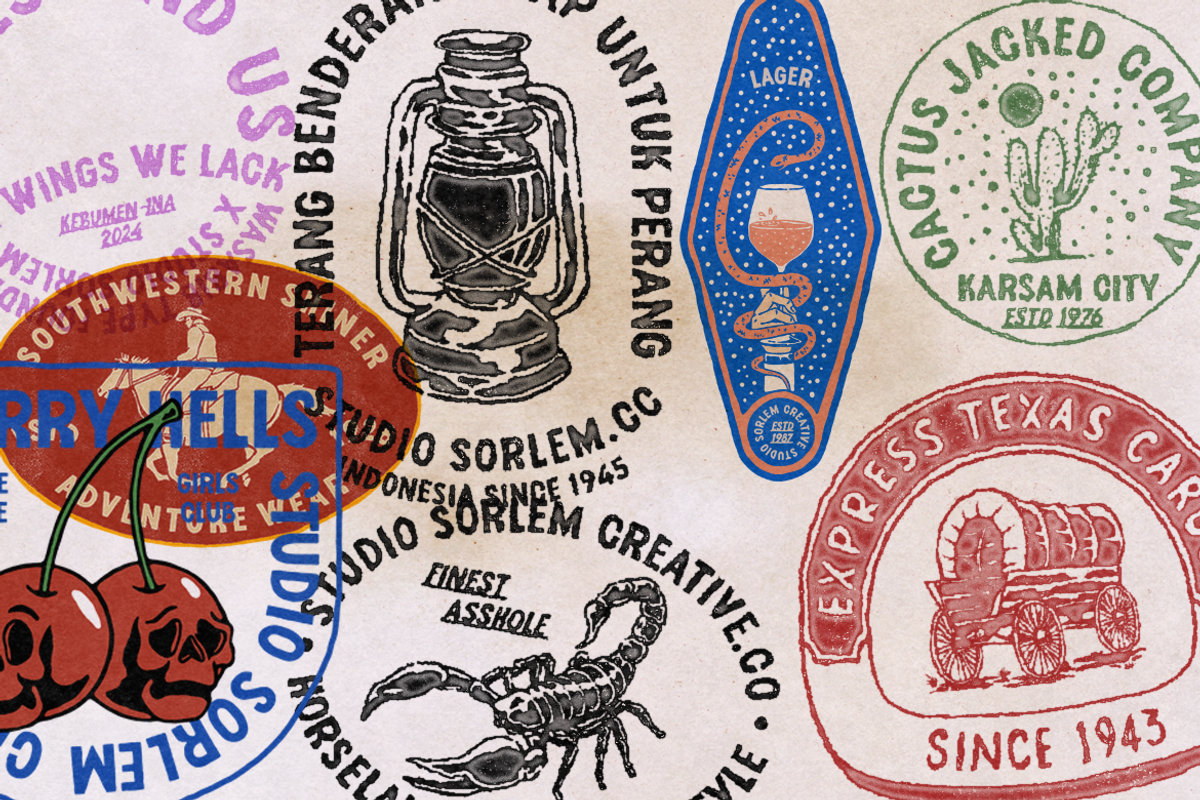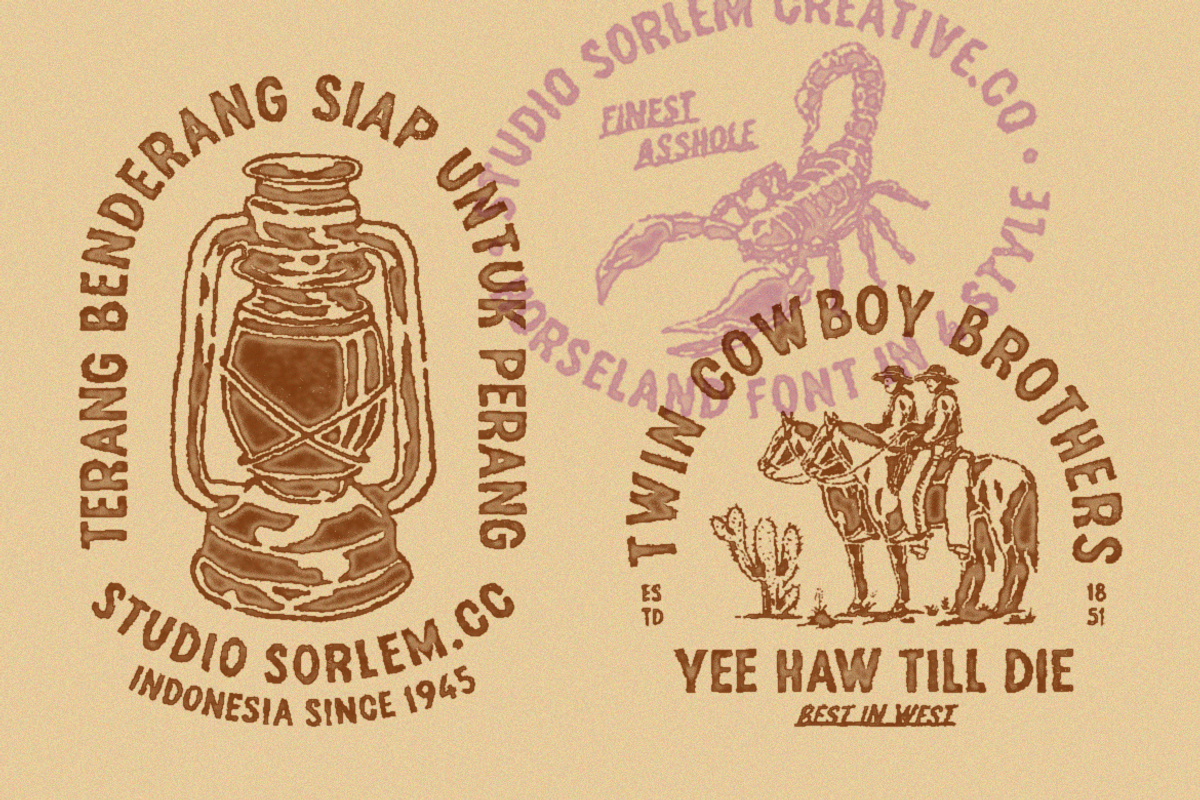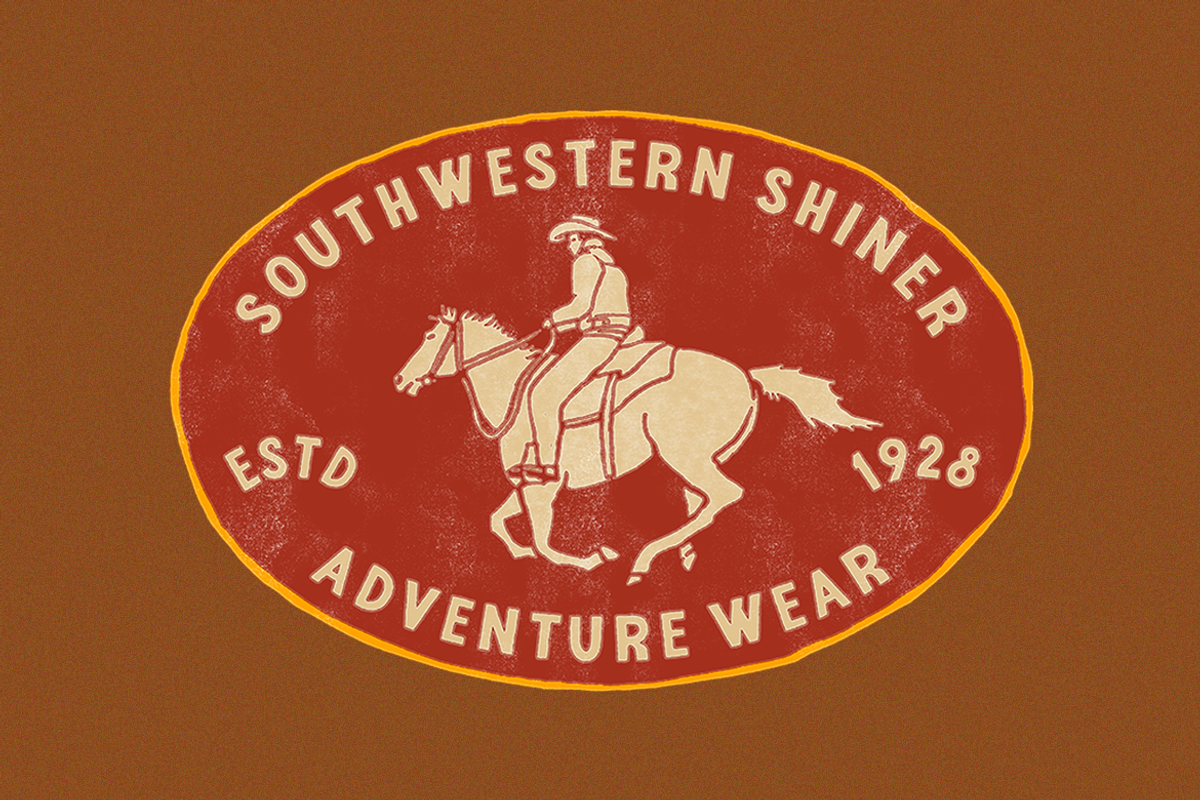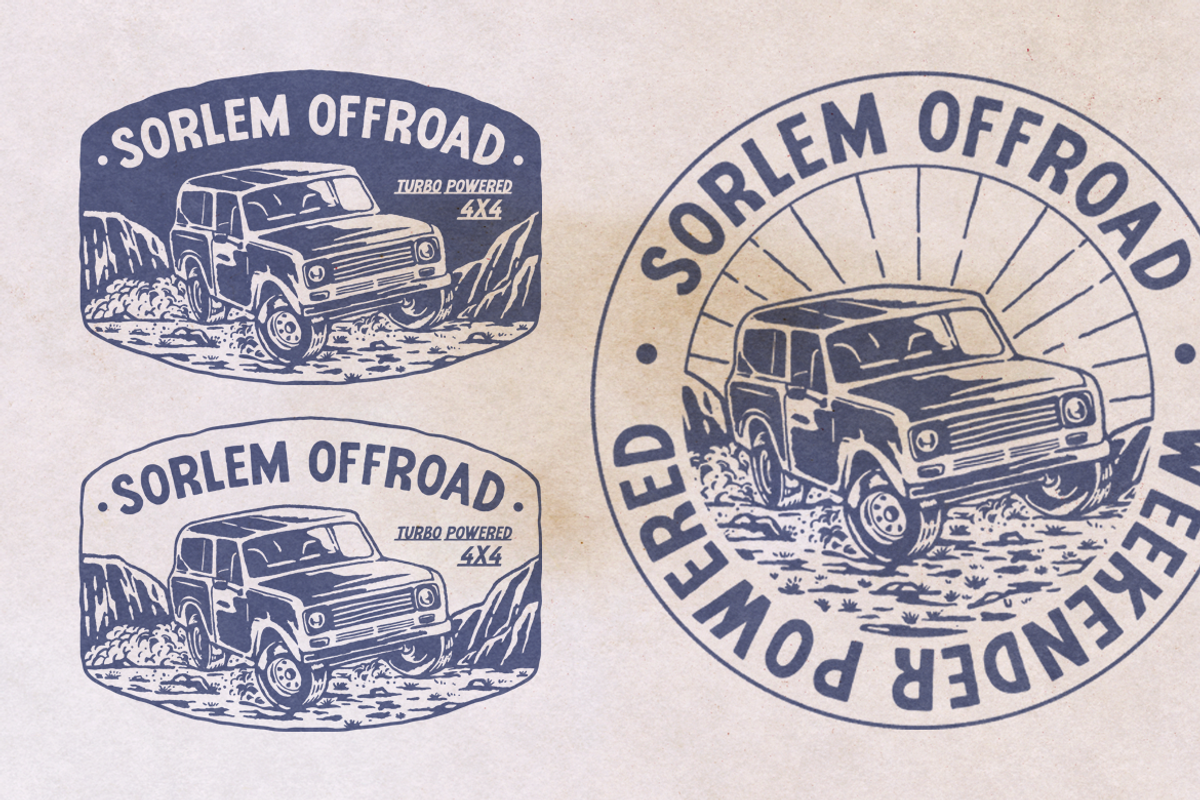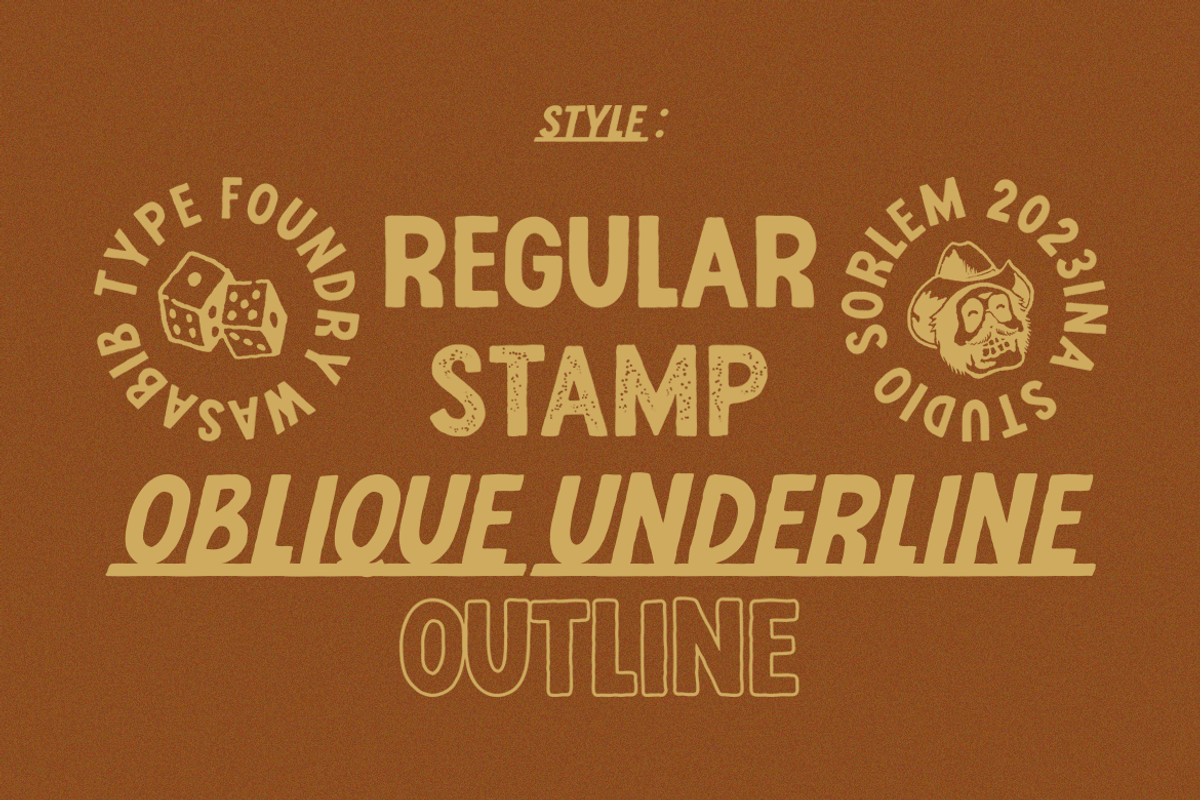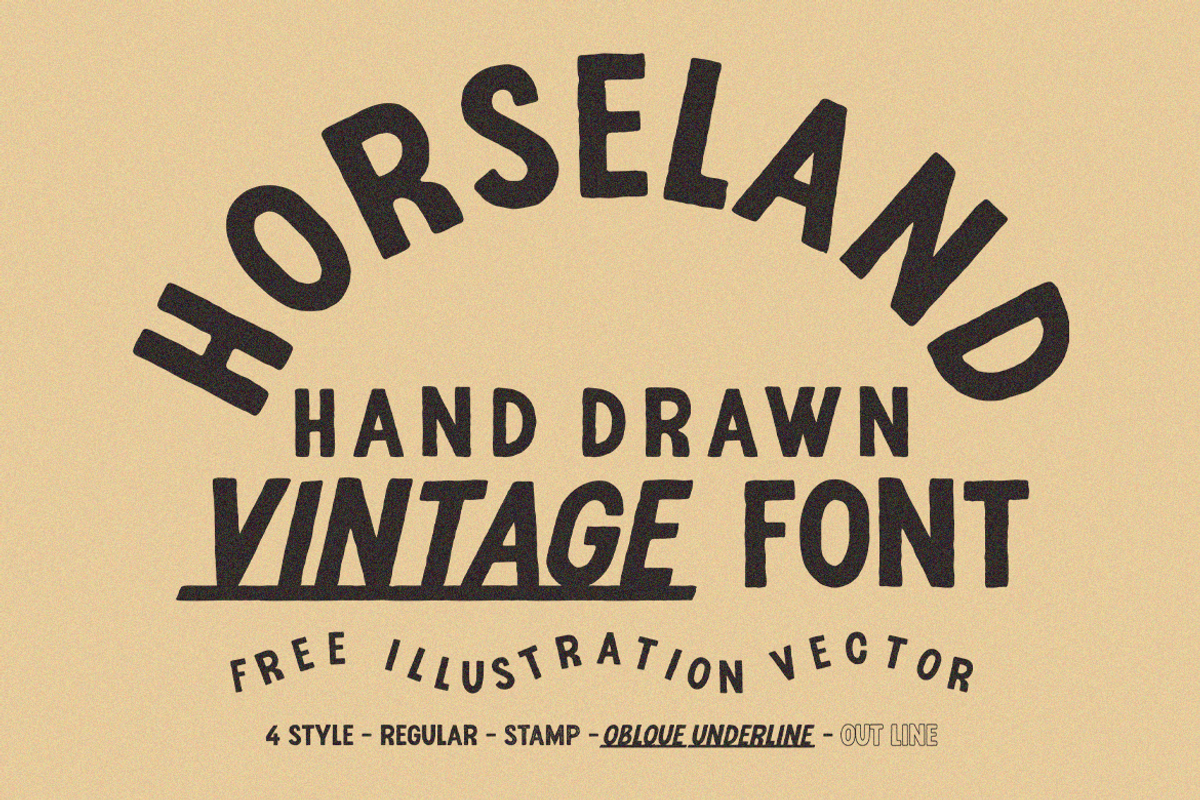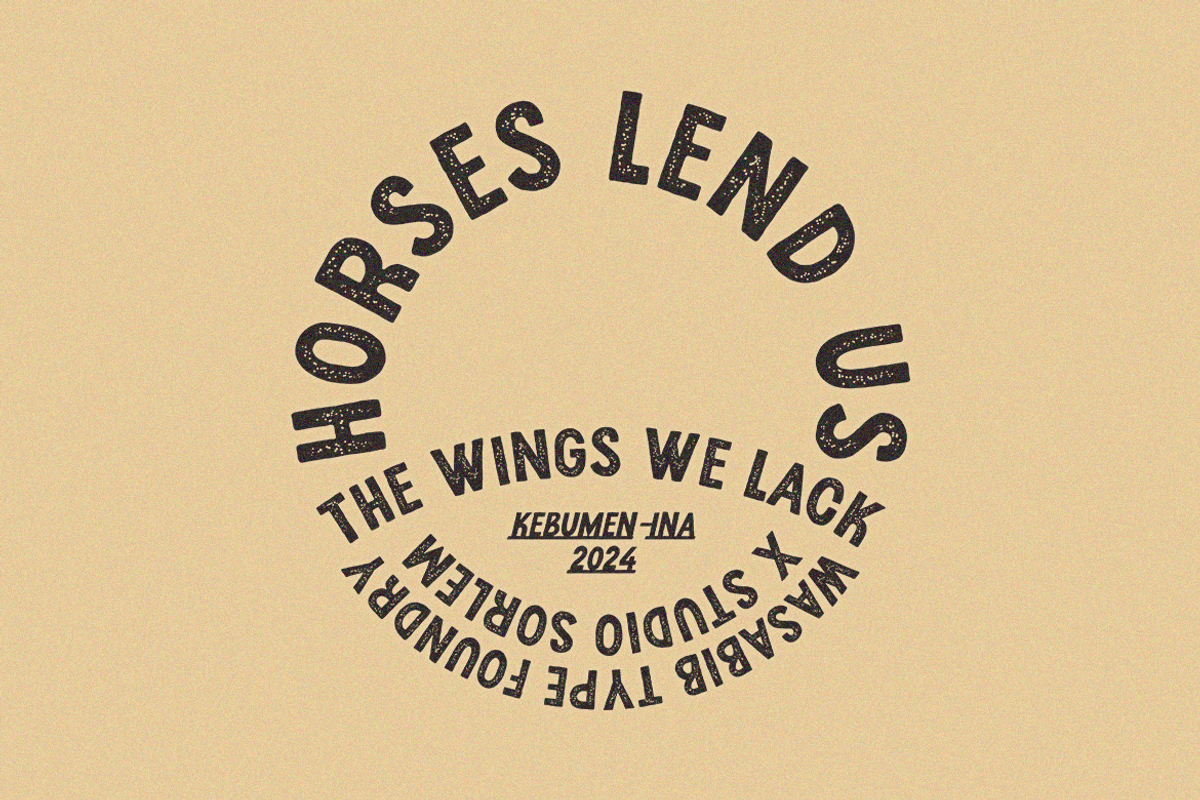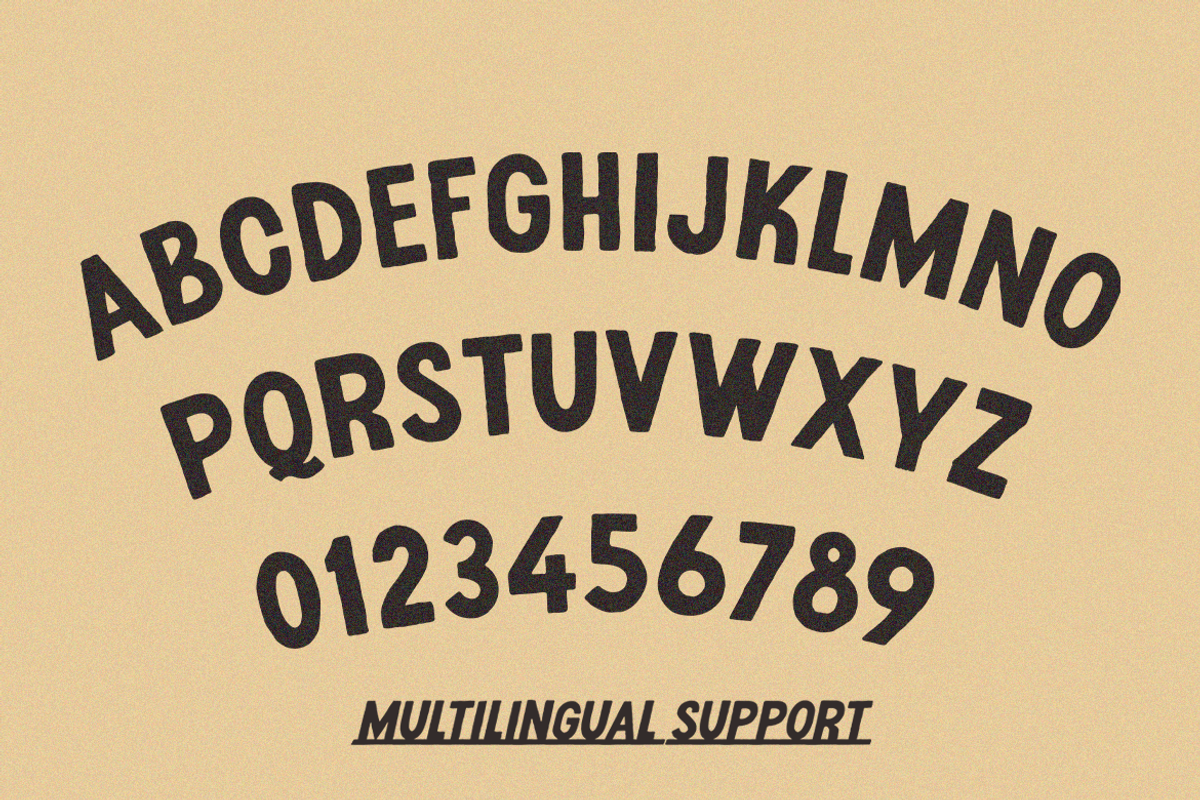
Horseland - Free Illustration Vector
Horseland is a captivating vintage typeface designed to evoke the charm of handcrafted lettering. Its textured appearance and imperfect lines imbue designs with authenticity and warmth. Available in four distinct styles – Regular, Stamp, Slant Underline, and Outline – Horseland offers versatility for projects ranging from branding and logos to posters and apparel. The font's playful personality makes it suitable for conveying a sense of nostalgia and whimsy.